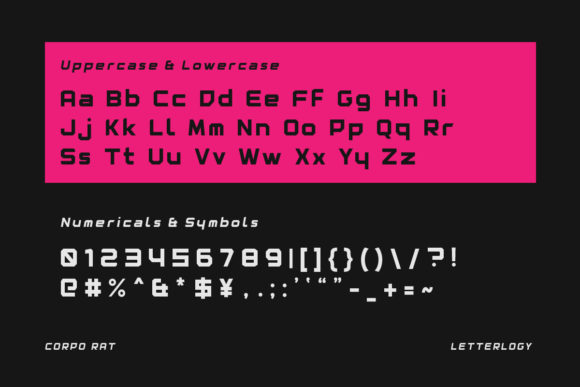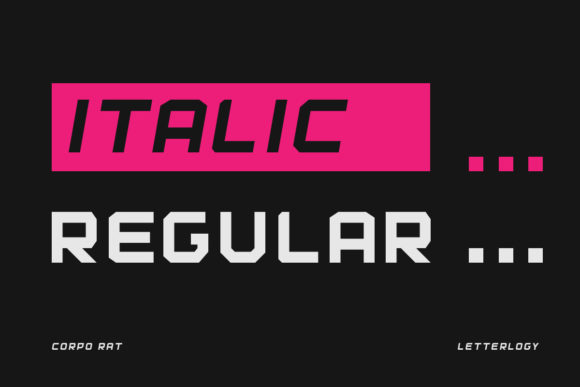
Introduction to Corpo Rat Font
Corpo Rat is a retro-futuristic sans serif font inspired by the 1980s & 1990s era depiction of a dystopian sci-fi future.
This font is the perfect choice to give your various design projects a true retro sci-fi aesthetic .
Key Features of Corpo Rat Font
Why Choose Corpo Rat Font?